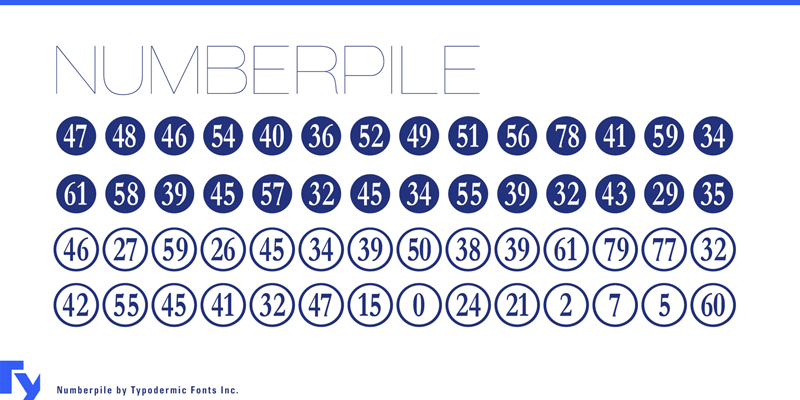
Font name: | Numberpile |
Numberpile is a set of circled numerals: convenient for maps & diagrams. Numberpile includes a handy guide for accessing numbers directly. If your application supports OpenType standard ligatures, you can type circled numbers by surrounding them in parentheses. For example: typing (100) will convert automatically to a circled 100. This new version fixes a bug with (99). These fonts include a license that allows free commercial use: sometimes referred to as a desktop license. This allows you to install the fonts on a computer and use them to create posters, web graphics, game graphics, t-shirts, videos, signs, logos and more. Read the license agreement for details. If you'd like to embed these fonts in an app, ebook, on the web or anything that's not covered by the desktop license agreement, visit the link below. You'll find distributors who offer different types of licenses or you can contact me for help. http://typodermicfonts.com/numberpile/ |